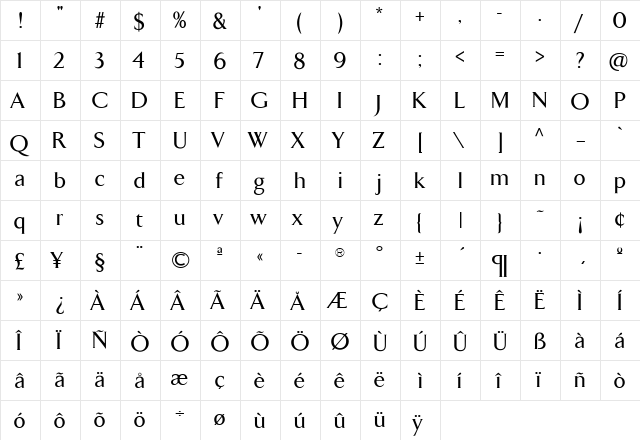
TFArrow Medium
Design Context for TFArrow Typeface
TFArrow is a composed and adaptable typeface that performs quietly and consistently across a wide range of design contexts.